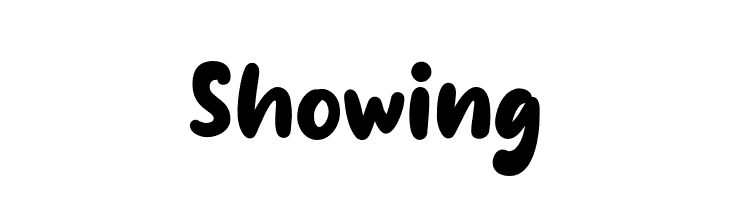
A playful, handwritten font with bold strokes and a casual style.
A bold, textured font with a dynamic, distorted appearance.
A bold, distressed font with a grungy, textured appearance.
A bold, textured blackletter font with a vintage gothic style.
A bold, distressed stencil font with a vintage, industrial feel.
A tactile Braille font for visually impaired readers.
A cursive, handwritten font with elegant loops and a natural flow.
A bold, retro-inspired cursive font with ornate, flowing characters.
A bold, cursive font with a smooth, flowing, handwritten style.
A modern, geometric font with a sleek, futuristic design.
A bold, expressive script font with dynamic, flowing strokes.
A bold, rounded font with a playful and friendly style.
A bold, geometric font with sharp angles and a modern aesthetic.
A graceful script font with elegant, flowing cursive strokes.
A dynamic and flowing script font with elegant, interconnected strokes.
A bold, textured font with a distressed, vintage appearance.
An elegant script font with intricate, flowing letterforms and ornate flourishes.
An elegant, flowing script font with ornate, cursive letterforms.
A graceful and flowing script font with elegant, cursive letterforms.
An elegant script font with flowing, cursive letterforms and decorative swashes.
A classic serif font with bold strokes and elegant curves, ideal for formal use.
A decorative and modern font with whimsical uppercase and straightforward lowercase letters.
A bold, elegant script font with flowing curves and sophisticated style.
A bold, dynamic script font with elegant curves and a lively appearance.
A bold, dynamic script font with elegant curves and high contrast.
An elegant, high-contrast serif font with elongated characters.